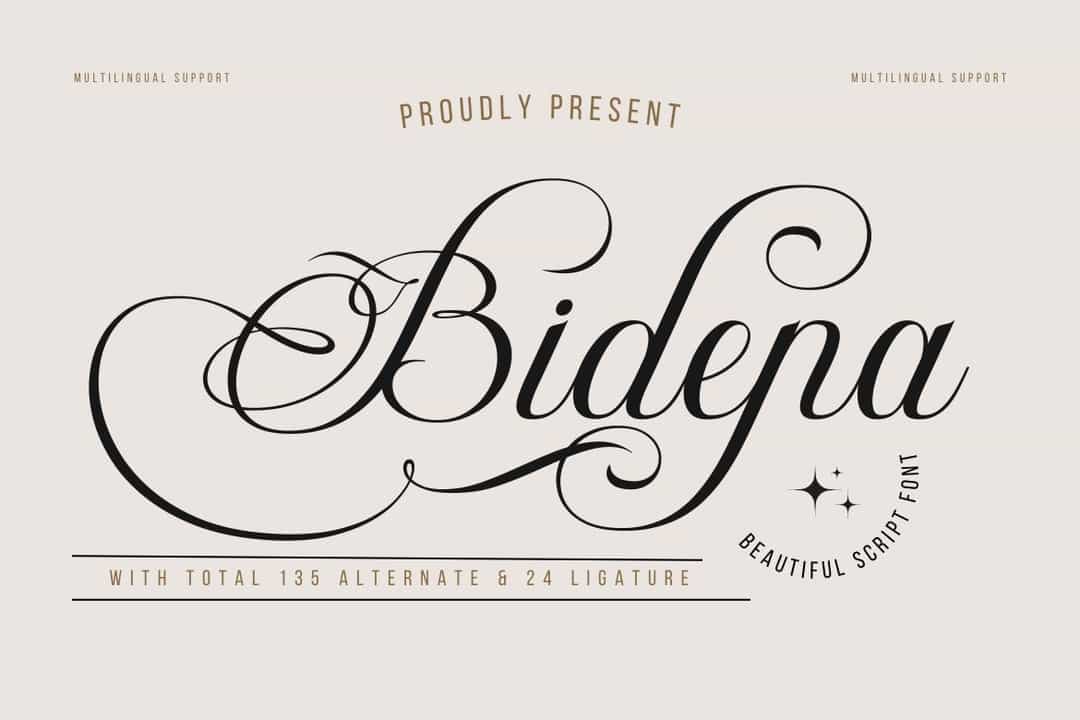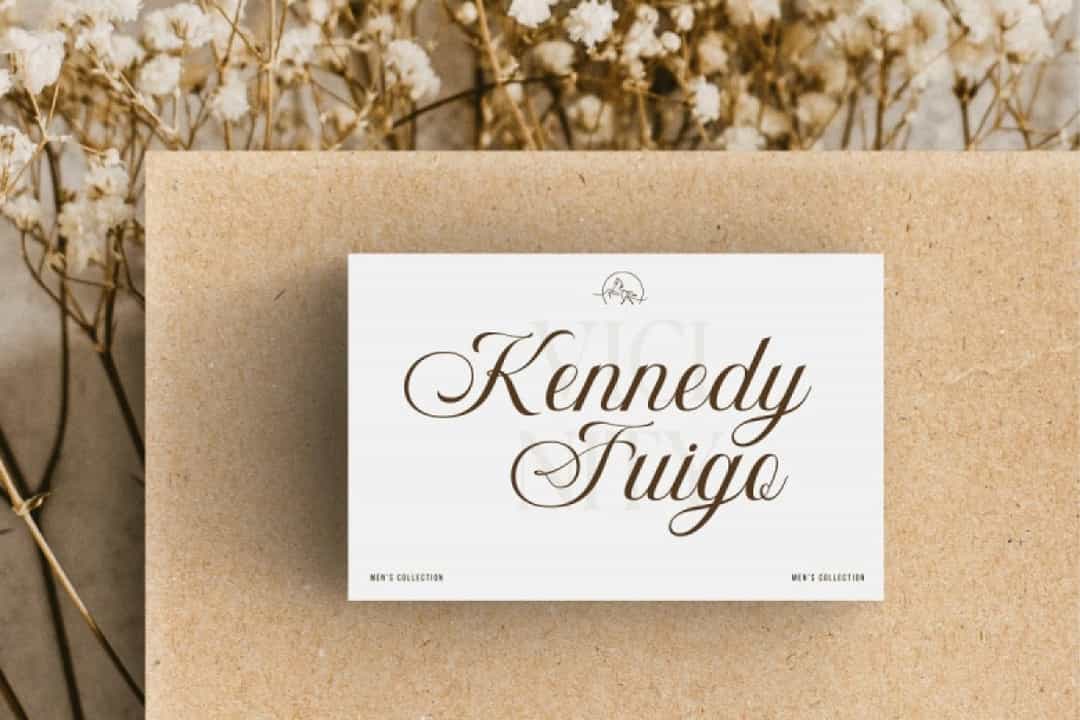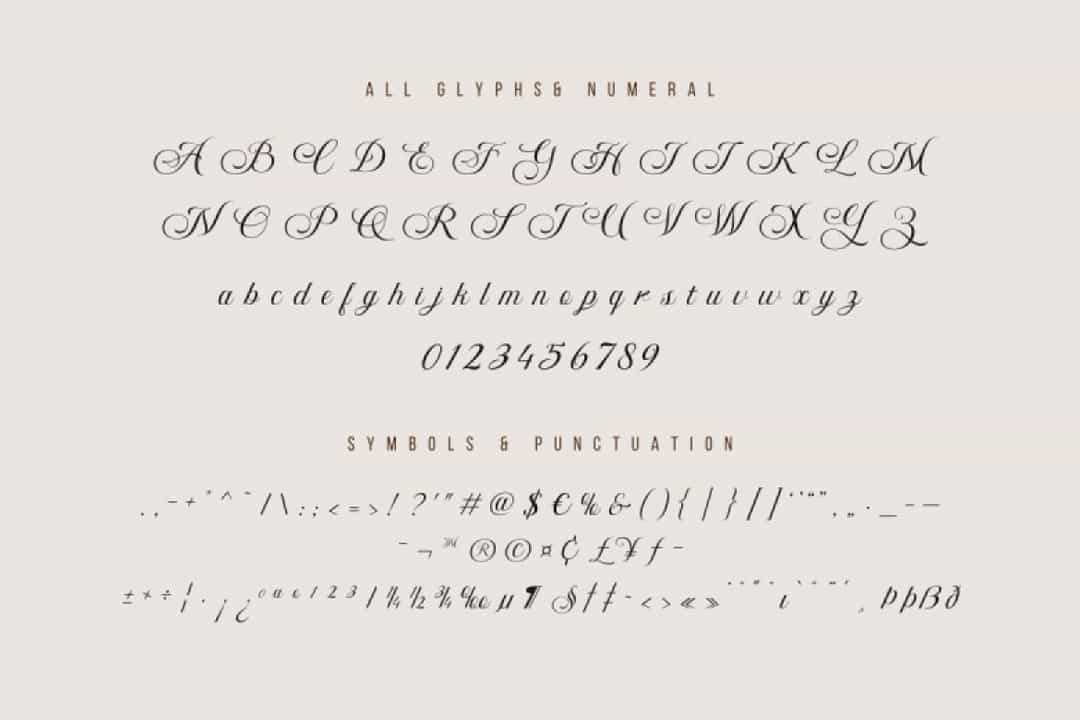
Introduce Bidena, the perfect script C Alligraphy Font for designers seeking to add elegance and class into their design projects. Boasting signature curves that ooze class, each character of Bidena makes this font perfect for projects requiring a touch of classiness and sophistication.